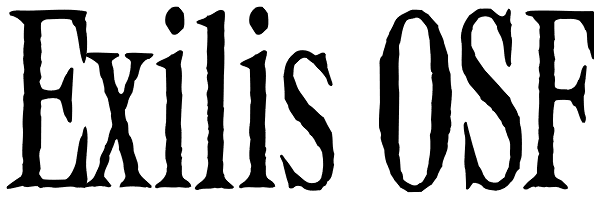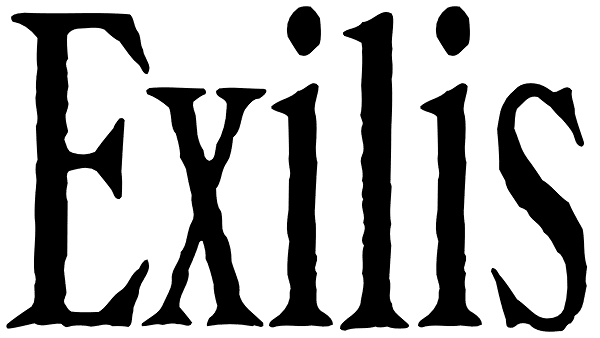
Exilis
Exilis is a condensed Latin face based on a 19th century sample. It was developed to typeset headlines in prop old newspaper clippings. The OSF weight has oldstyle figures and modified serifs on some of the uppercase characters to better capture the...
Exilis OSF
Exilis